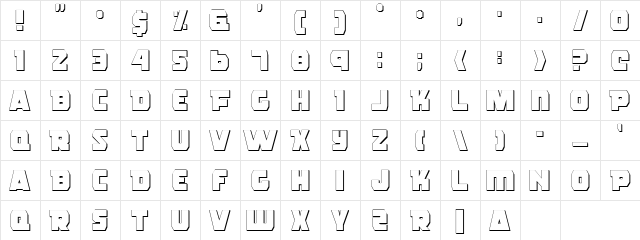
Rogue Hero Outline Free Font
Rogue Hero Outline Outline
Style: Outline
Rogue Hero Outline Family
Rogue Hero Outline Outline
Design Context for Rogue Hero Outline
Rogue Hero Outline is built around its visual character rather than neutral utility - its distinctive forms are designed to make an impression at display sizes.
Font Pairing: Pair with a clean neutral sans-serif for body copy to let Rogue Hero Outline's character lead without overwhelming the composition.
Pro Tip: Use Rogue Hero Outline exclusively at display sizes - it was designed to be seen, not read at length. Let a neutral companion handle body copy.